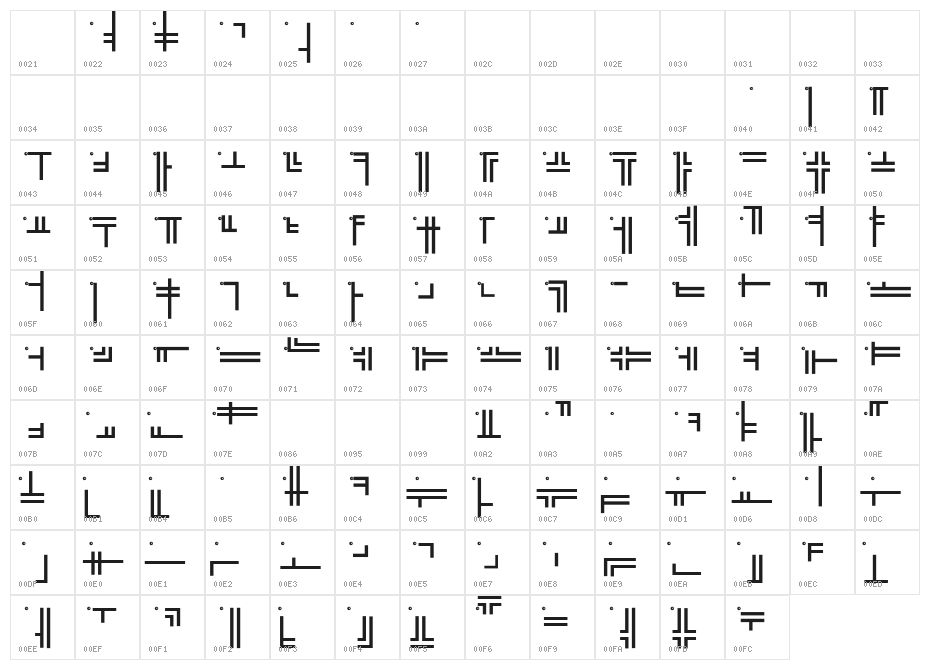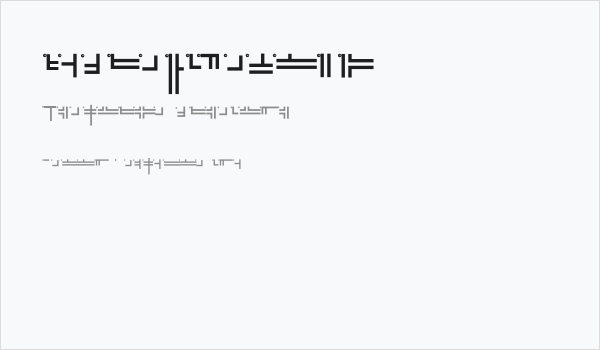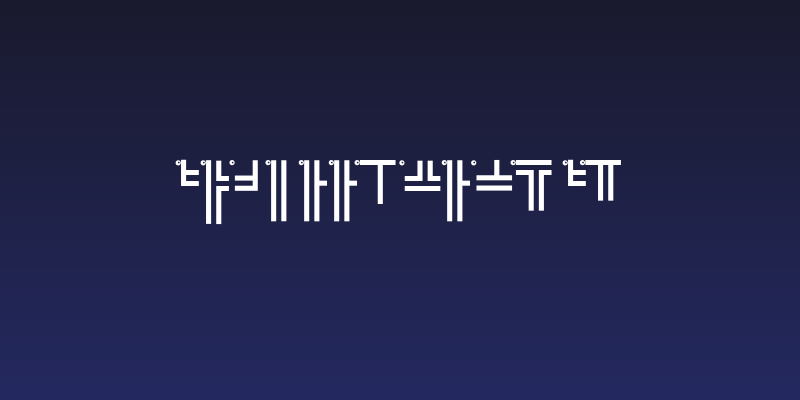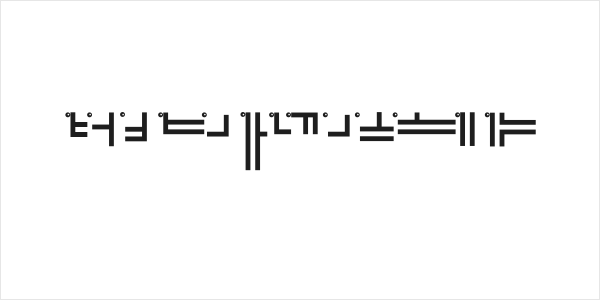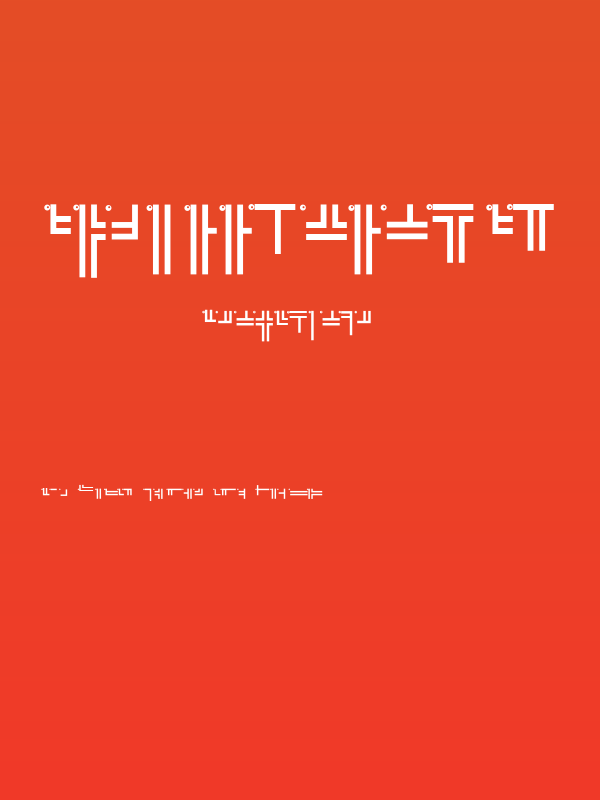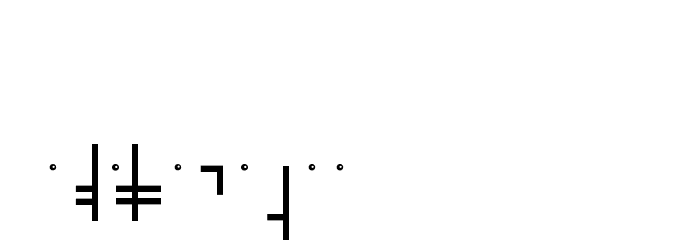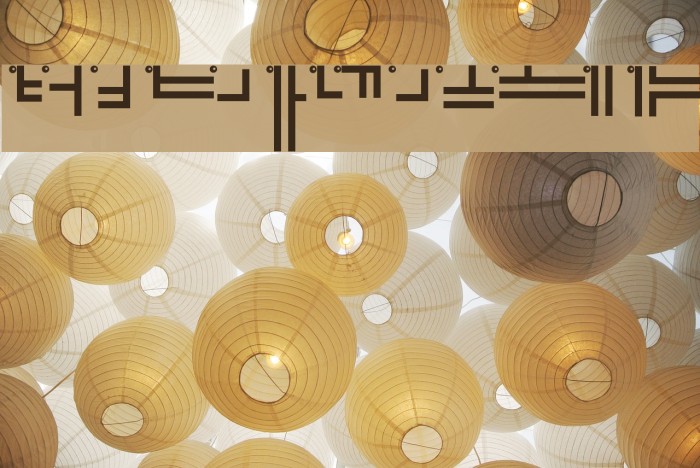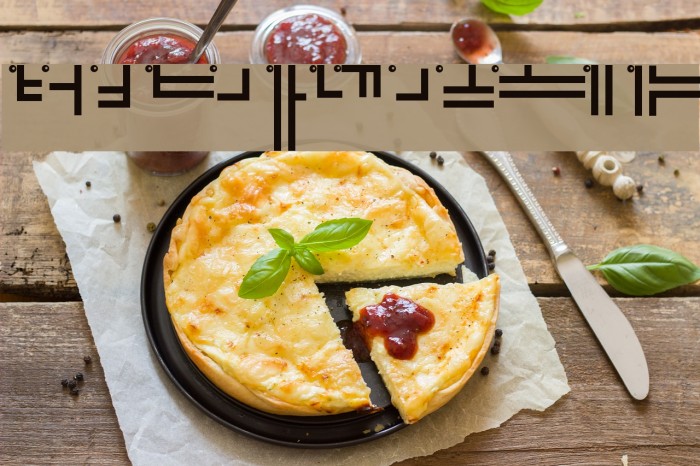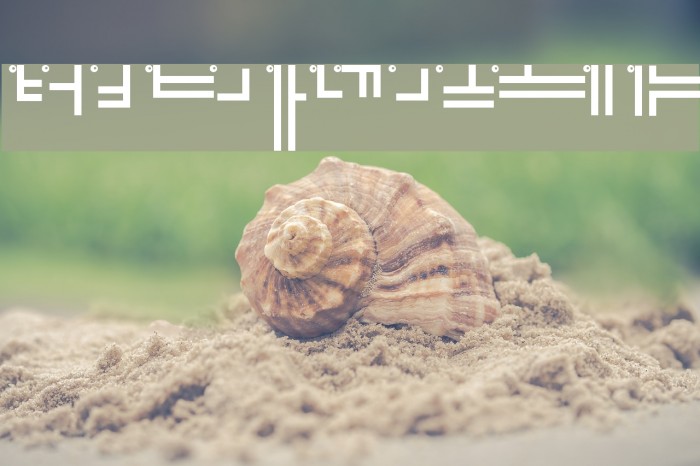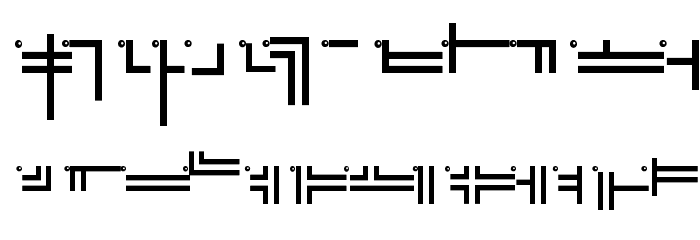
UmDieEckePlus Font
UmDieEckePlus Description
This font features a highly decorative and abstract design, characterized by geometric shapes and lines with small circular accents. Each character is constructed with a series of straight lines and right angles, giving it a futuristic and digital appearance. The design is consistent across all characters, maintaining a uniform look that emphasizes its modern and avant-garde style. The font's unique structure makes it stand out, with each letter and symbol appearing as a distinct piece of art. The use of dots adds a playful yet sophisticated touch, enhancing its visual appeal.
| Use Case | Logos, Posters, Digital Art |
| Proposed Projects | Ideal for digital art projects, modern branding, sci-fi themed designs, and creative posters. |